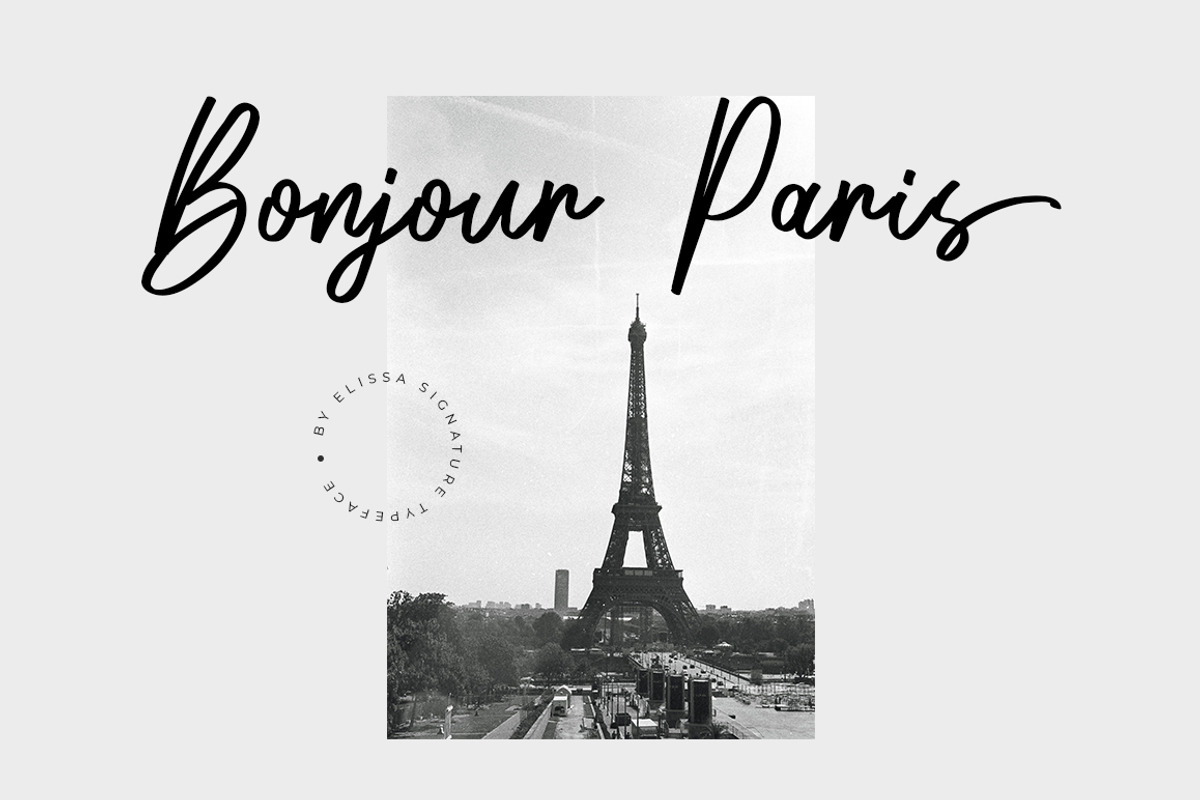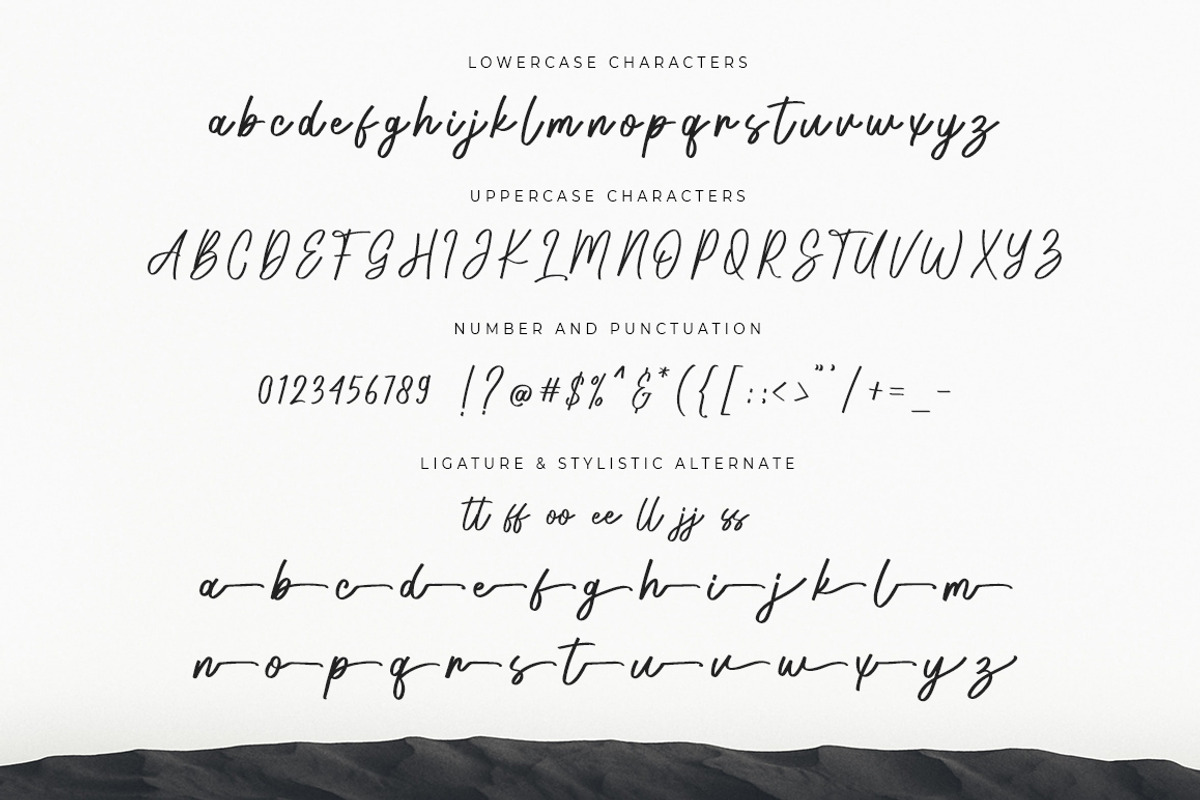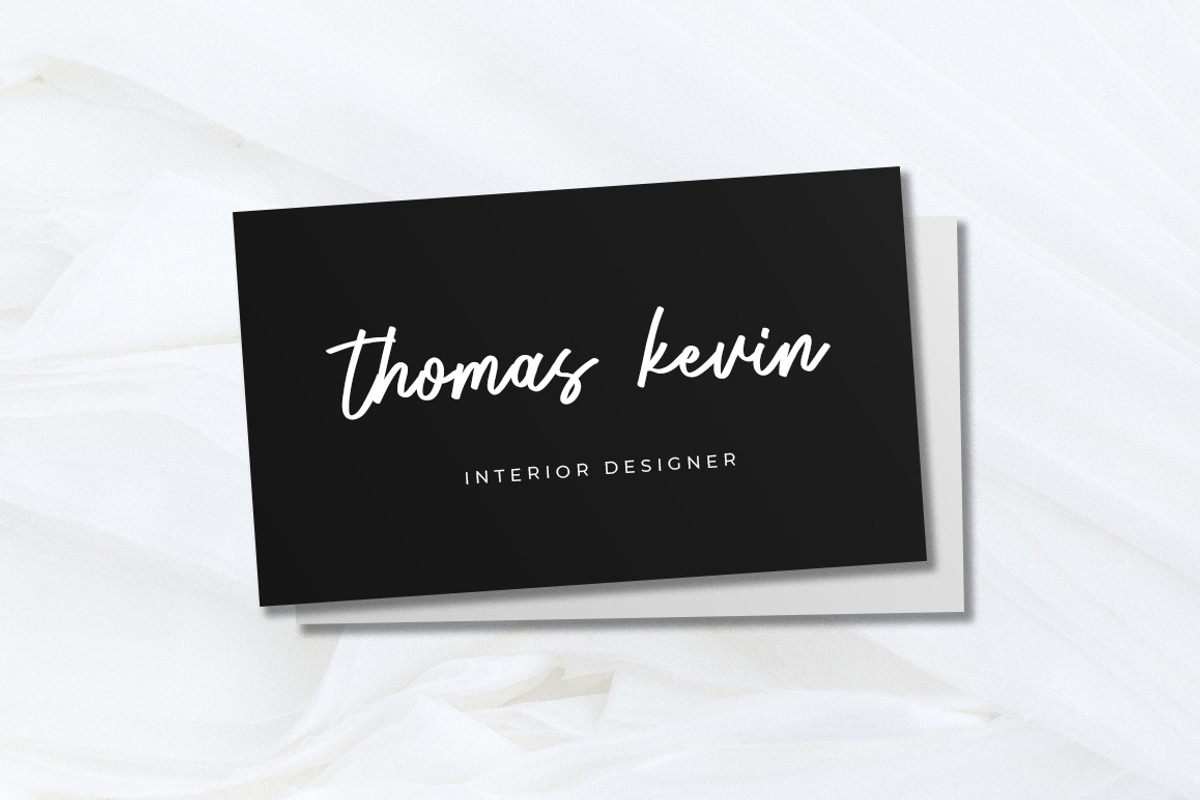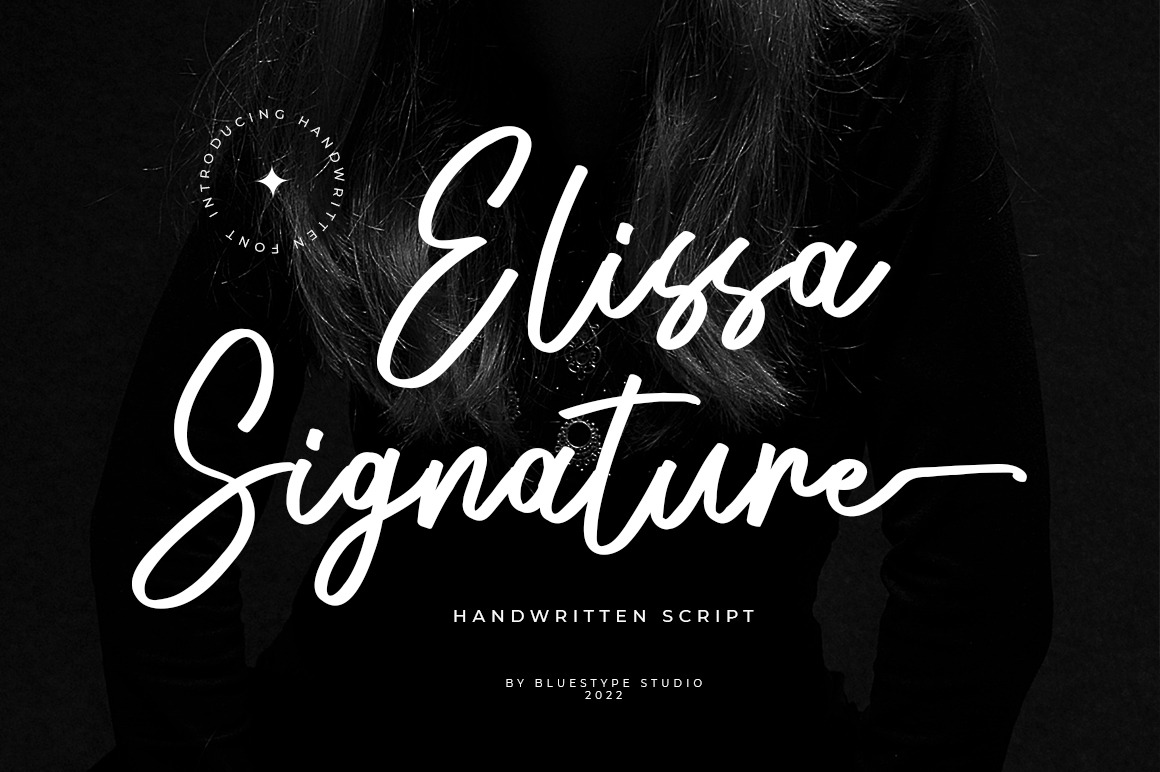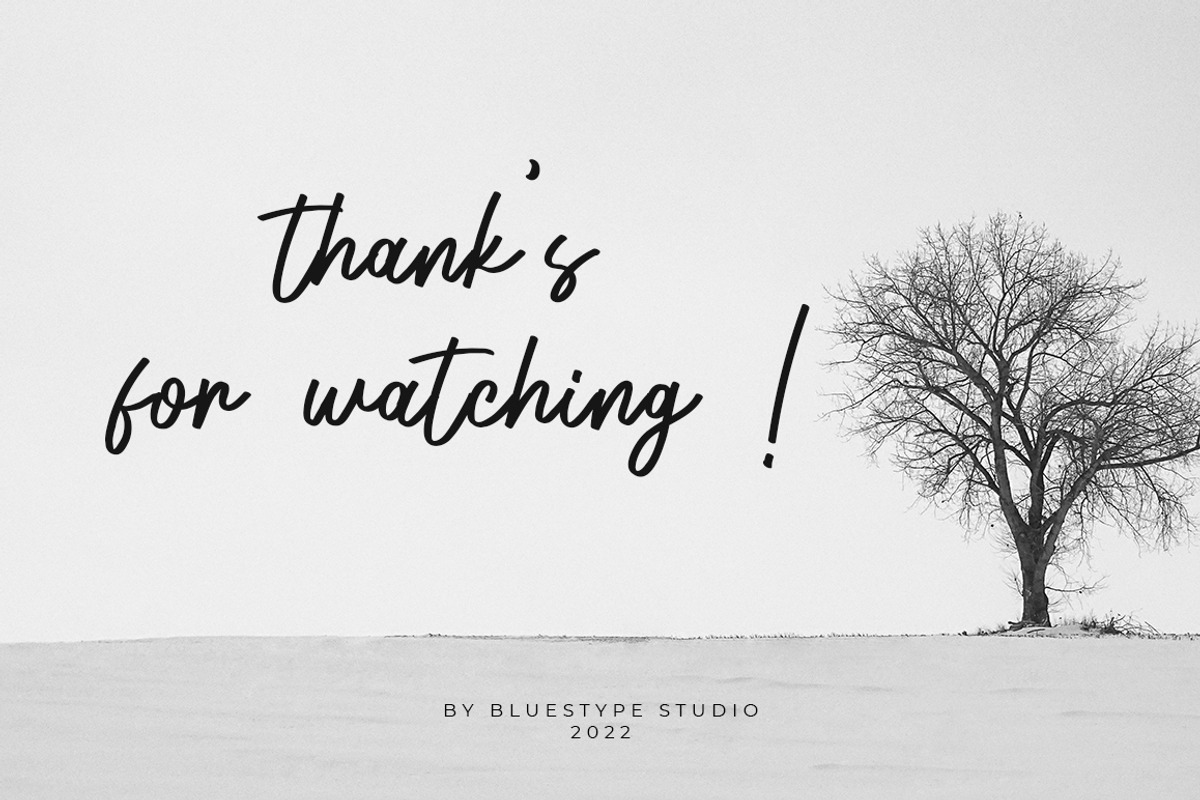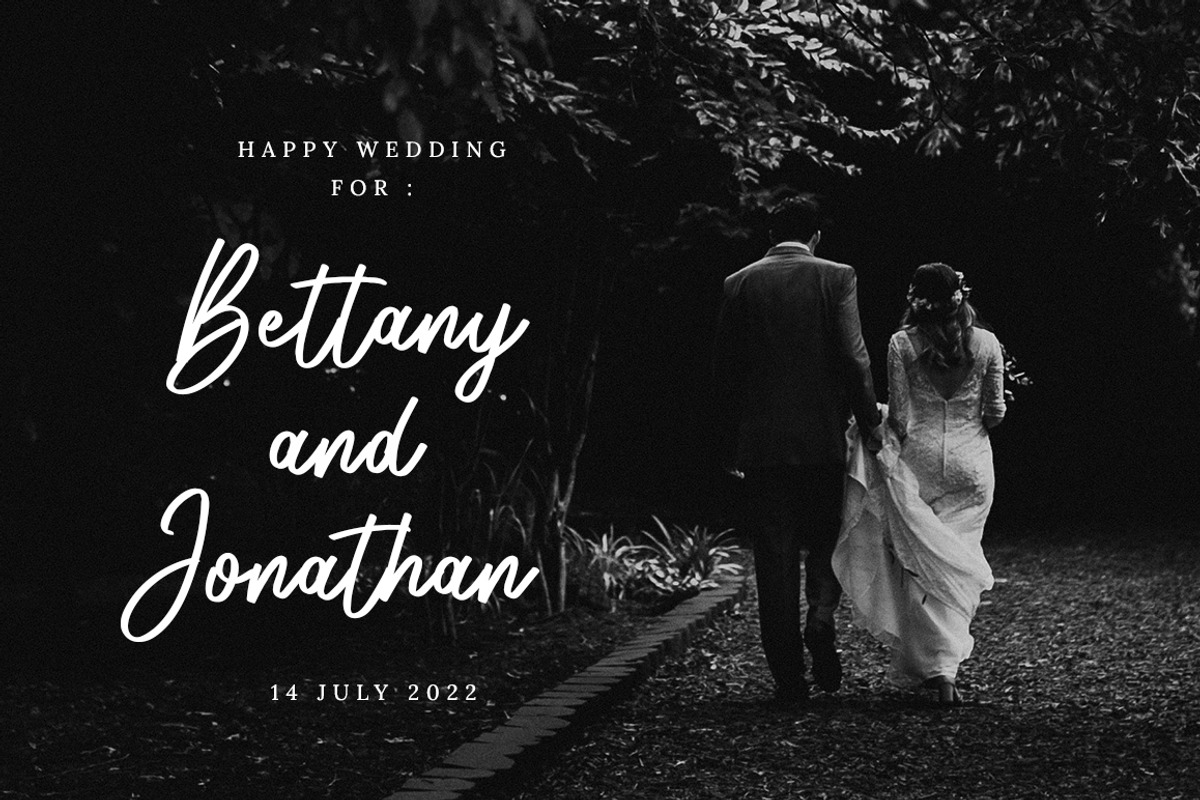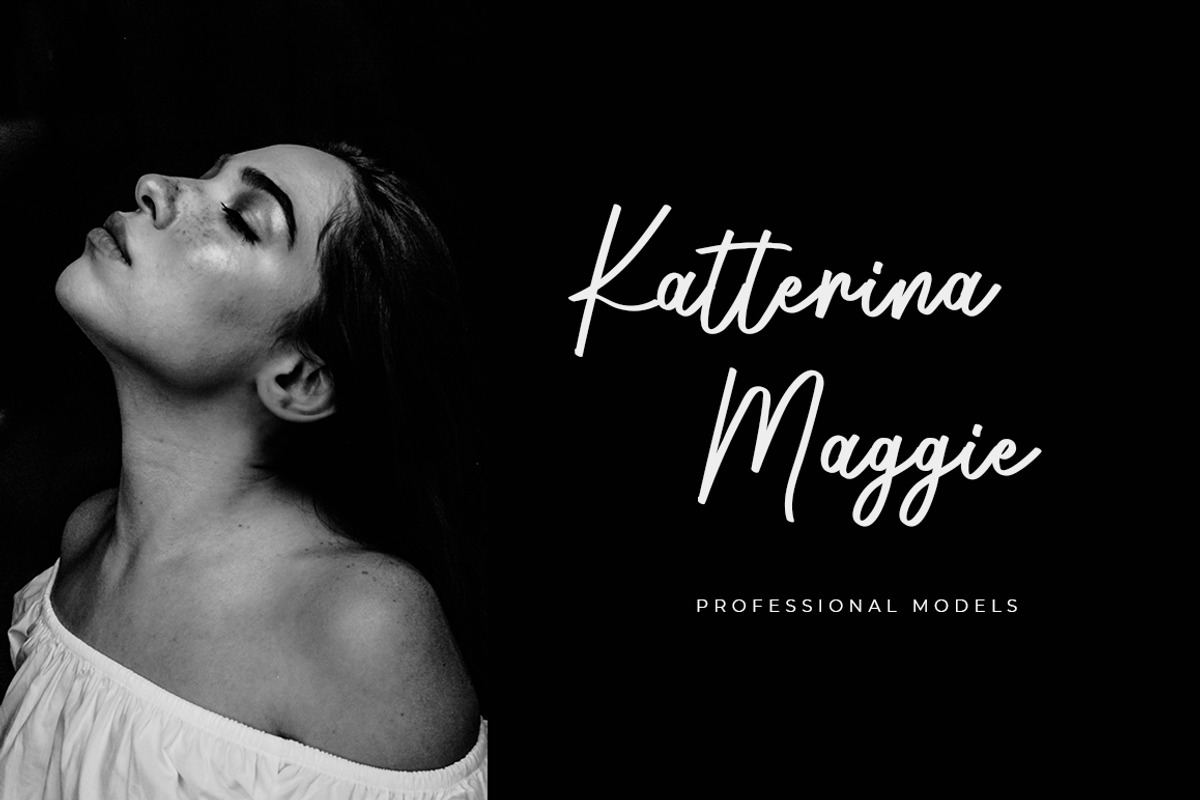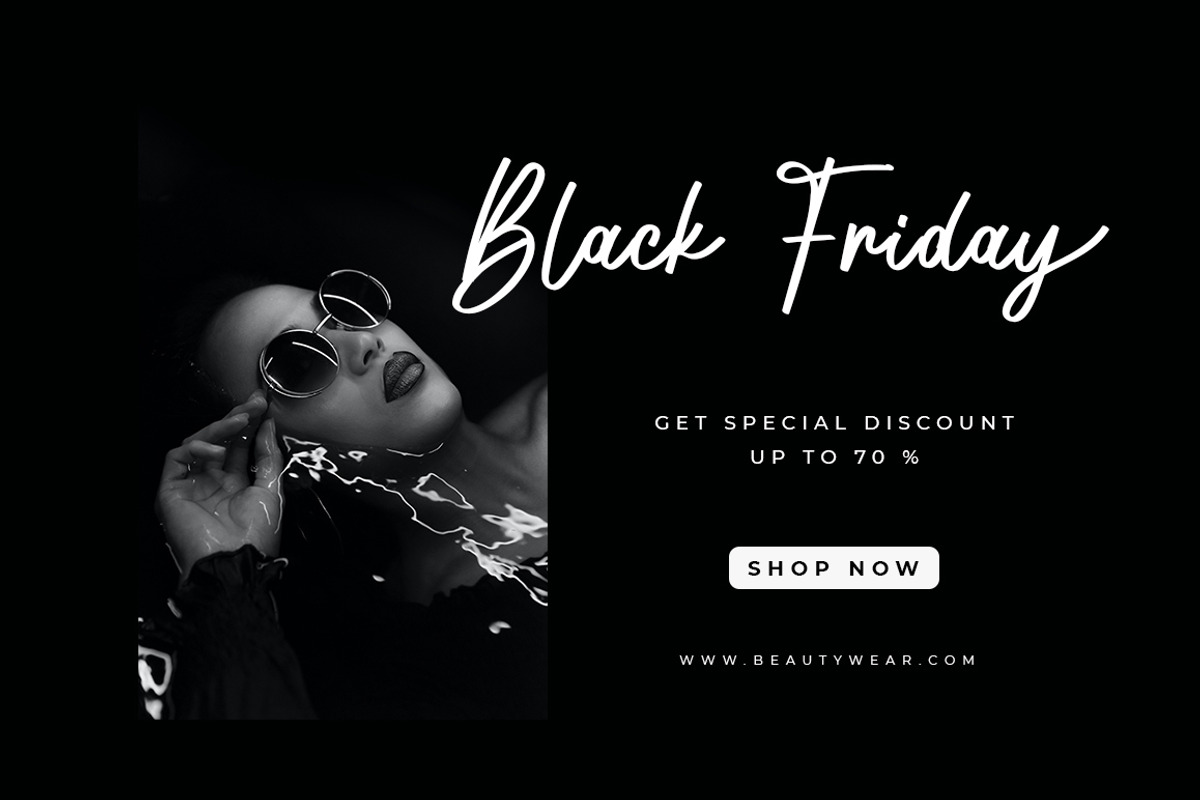
Elissa Signature - Handwritten Font
Introducing Elissa Signature - Handwritten Script Font
Elissa Signature is a sweet script typeface with legibility and authenticity. Use it for any design project that requires a personalized appearance!
This font is suitable for use on photography, business cards, weddings, t-shirt designs, logos, magazines, quotes, fashion, watermarks, invitations, signatures.
- Stylistic Alternate
- Support Multilingual Languange